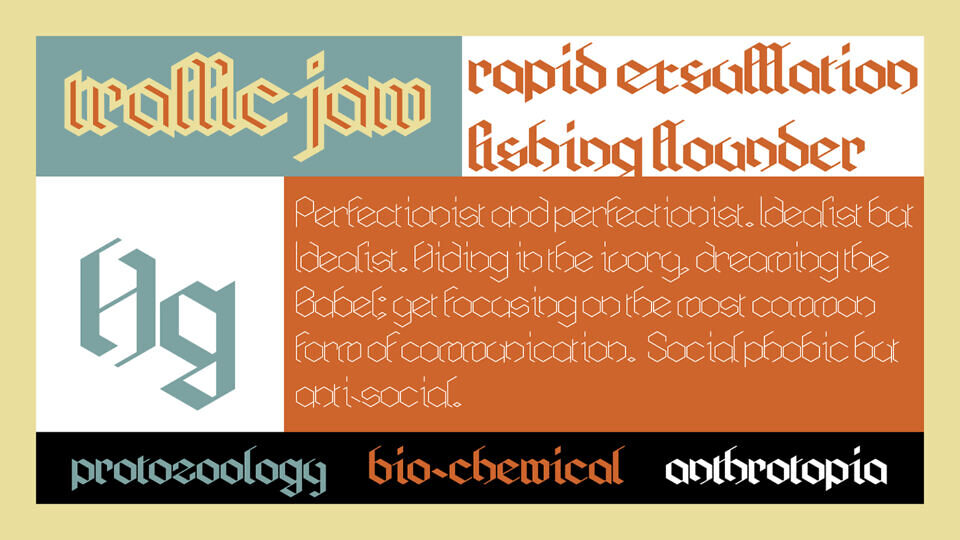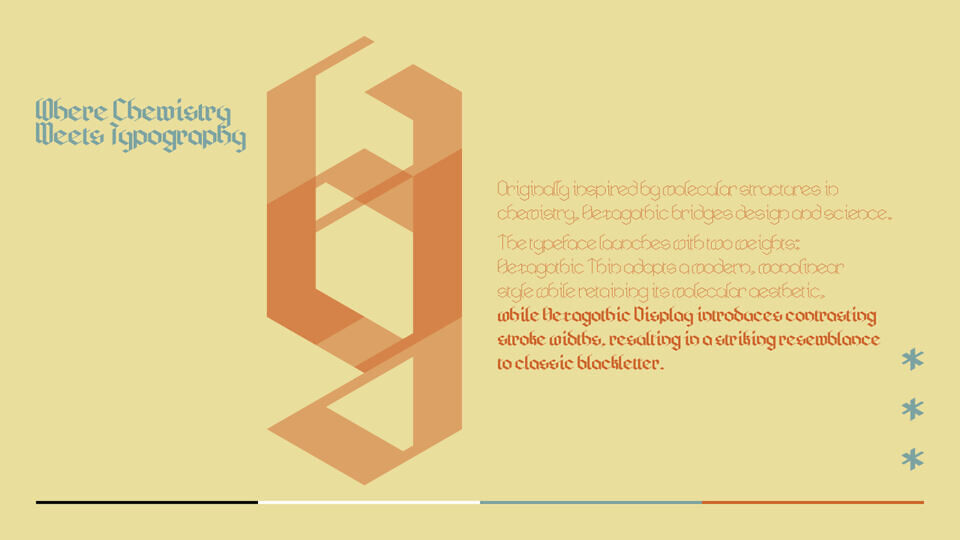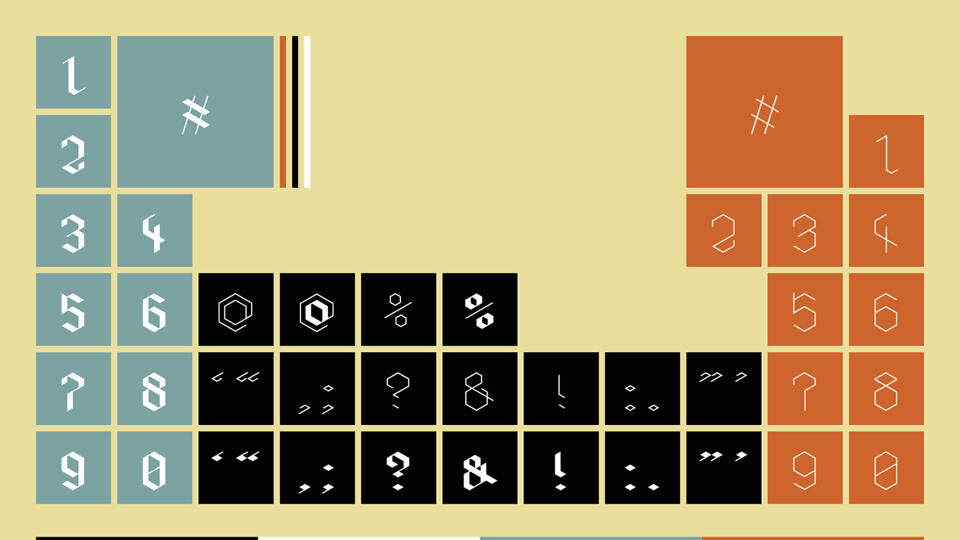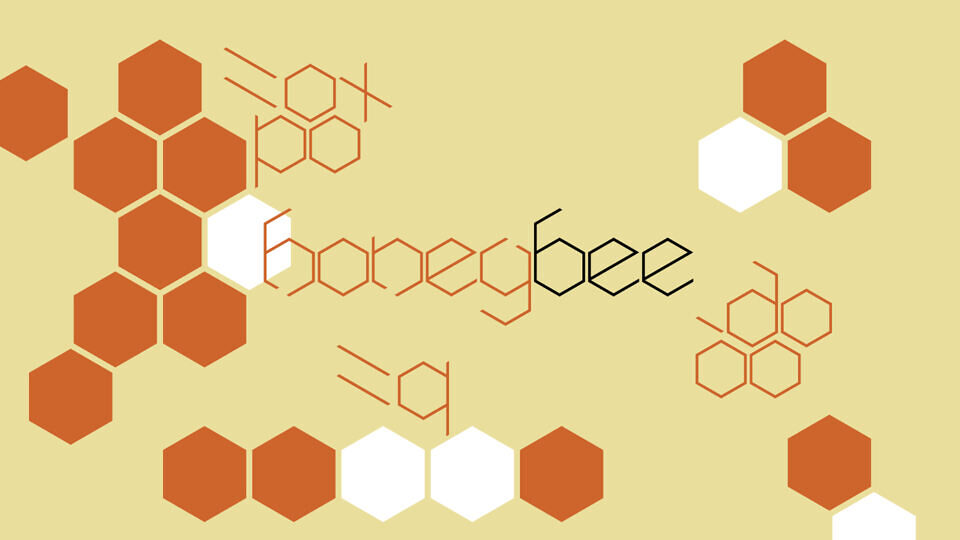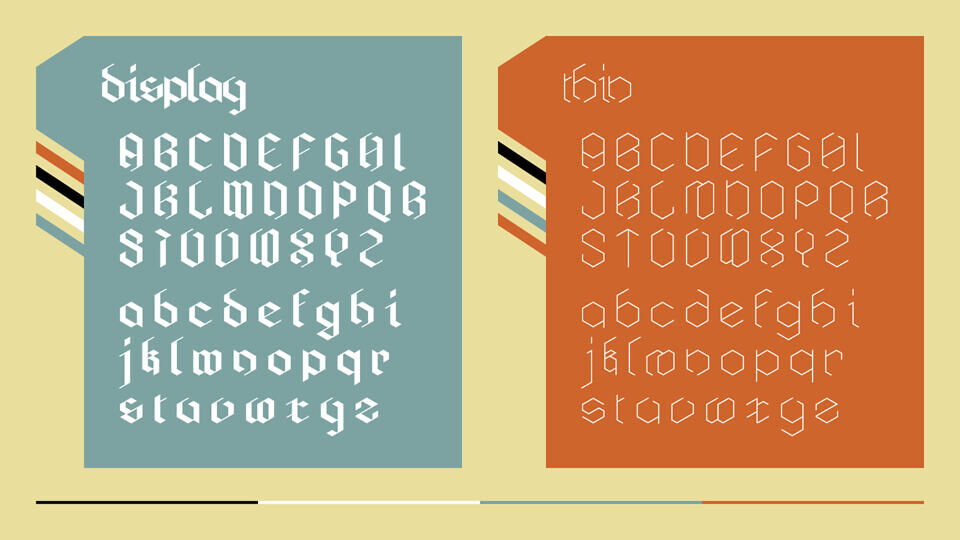
Originally inspired by molecular structures in chemistry, Hexagothic font bridges design and science. The typeface launches with two weights: Hexagothic Thin, a modern, monolinear style while retaining its molecular aesthetic; while Hexagothic Display introduces contrasting stroke widths, resulting in a striking resemblance to classic blackletter.